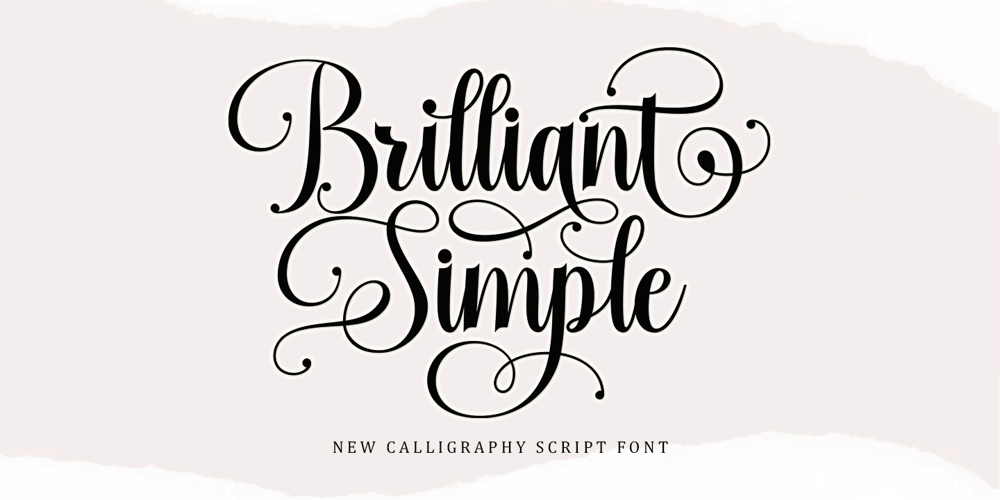
Brilliant Simple Font Family was designed by Muhammad Nazar and published by Bungletter. Brilliant Simple contains 1 styles and family package options. Brilliant Simple is a very Beautiful, elegant and unique handwritten font. Expertly designed to be a true favourite, this font has the potential to take your creative ideas to the highest level! Brilliant Simple is attractive because it is sleek, clean, feminine, sensual, glamorous, simple and very easy to read, Contains full set:-Uppercase-Lowercase-Alternative-Ligatures-Punctuation-Number-Multilingual support.Thanks & Congratulations on the Design.